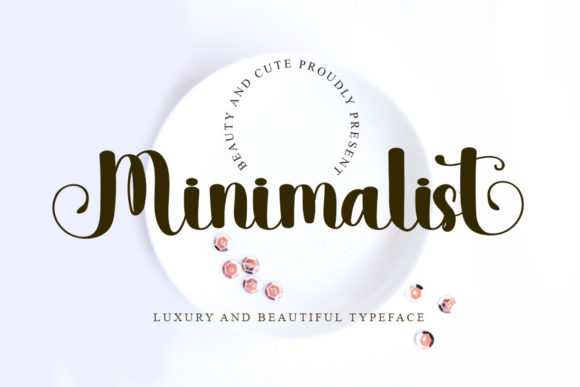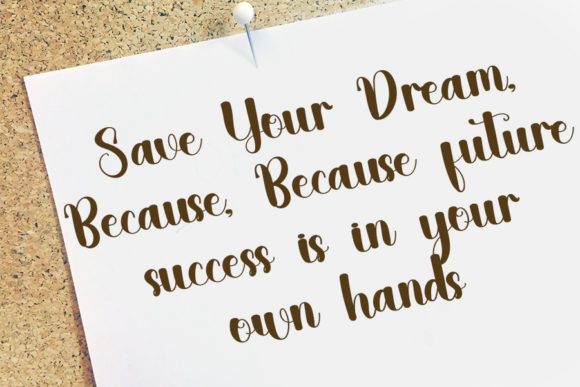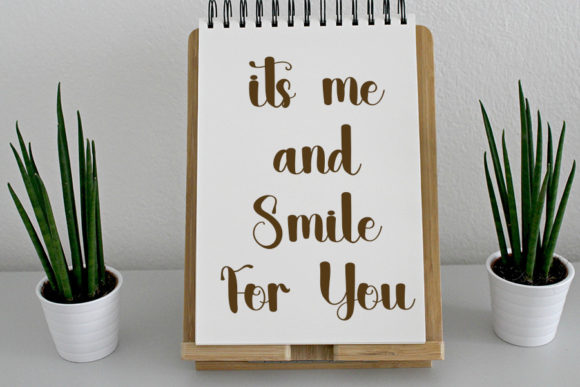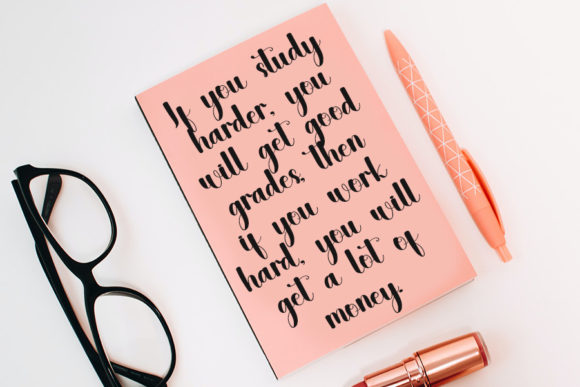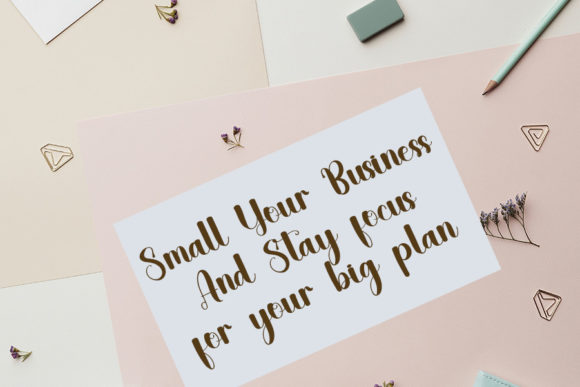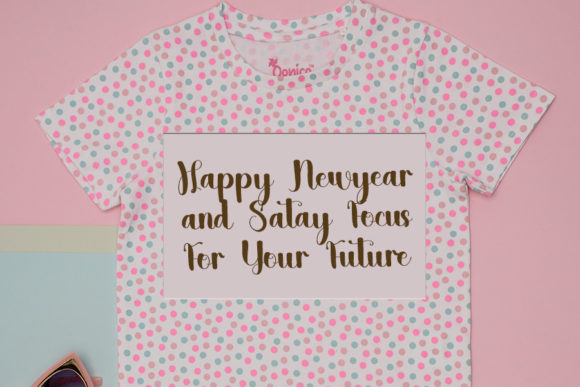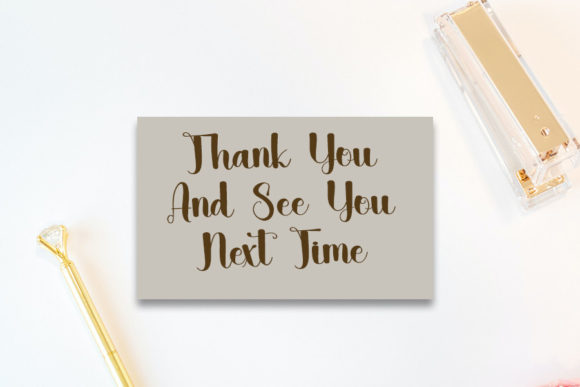
Minimalist Font
About Minimalist Font
Minimalist is a lovely script font. This round lettered script has a wide spectrum of applications ranging from greeting cards to headlines and logos.